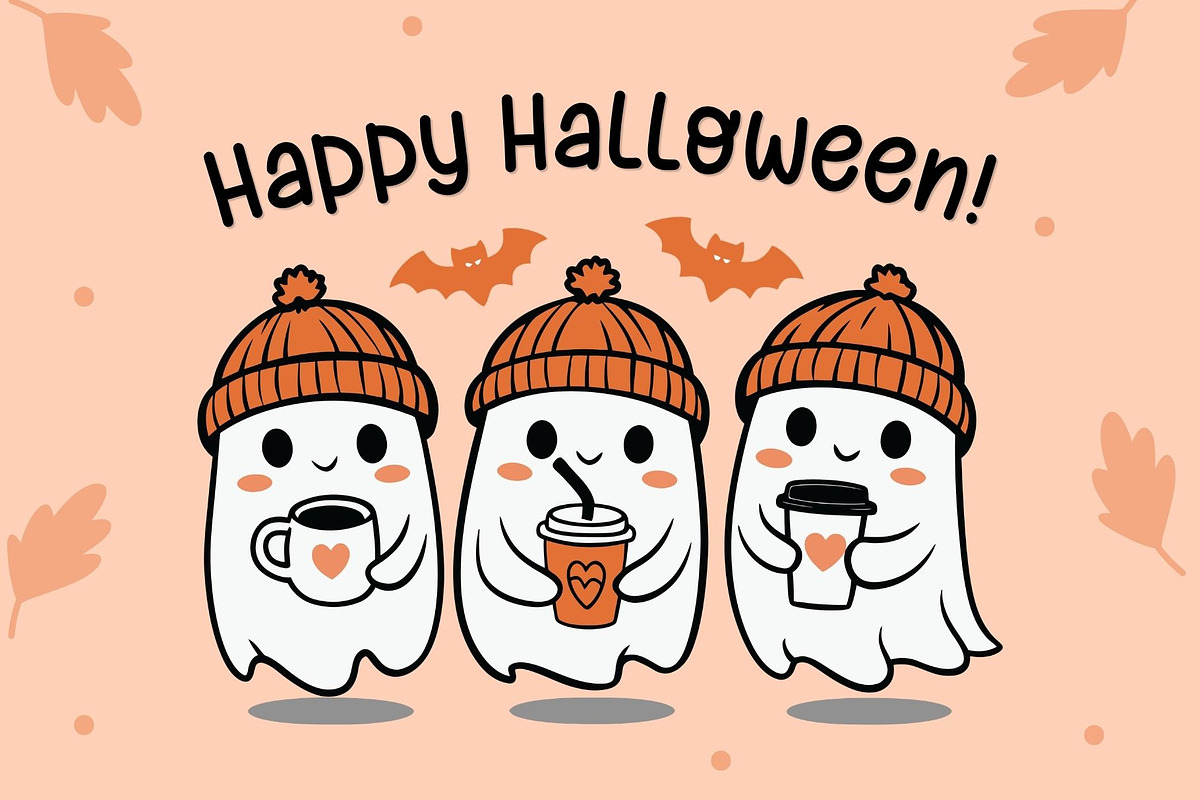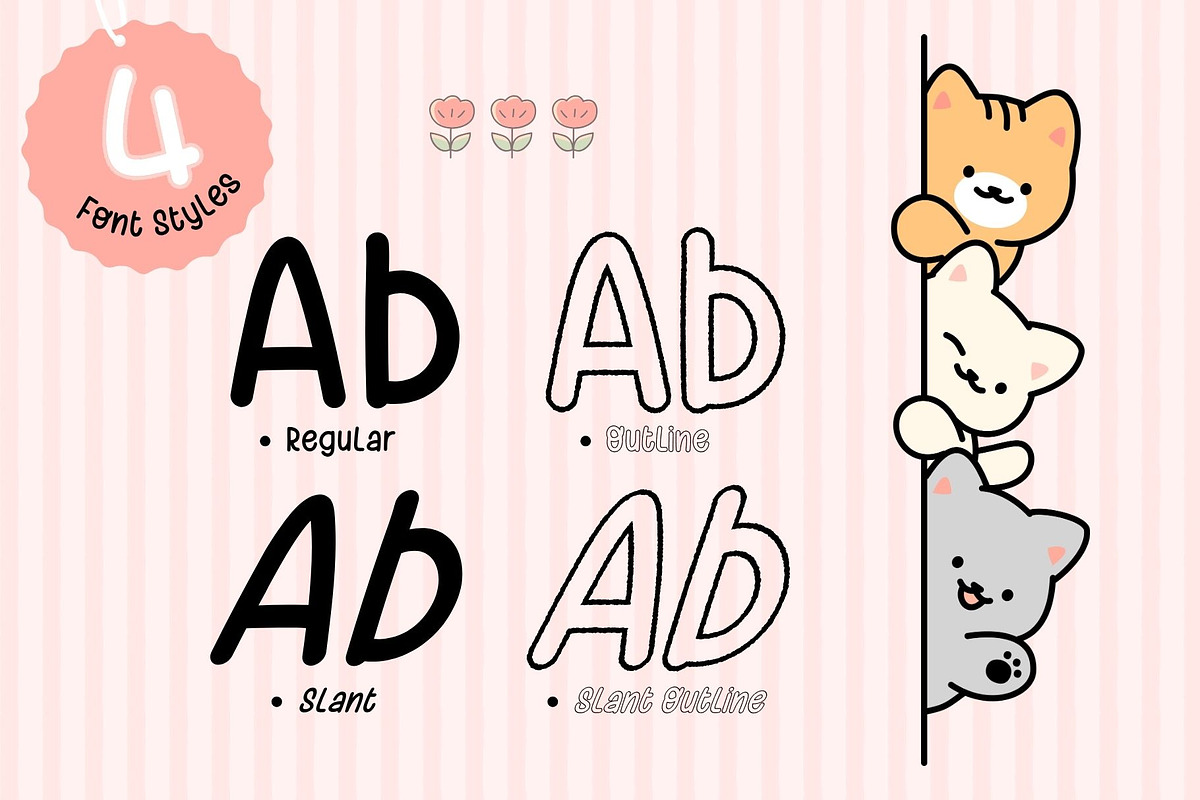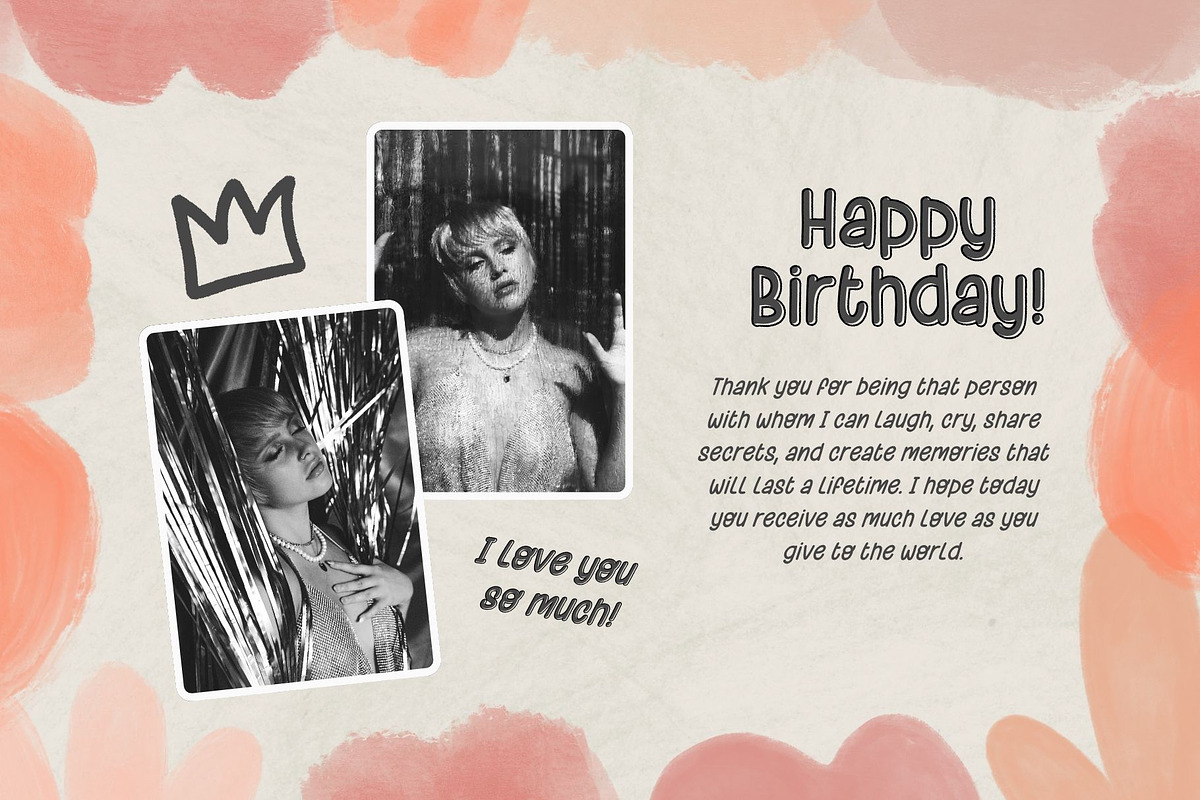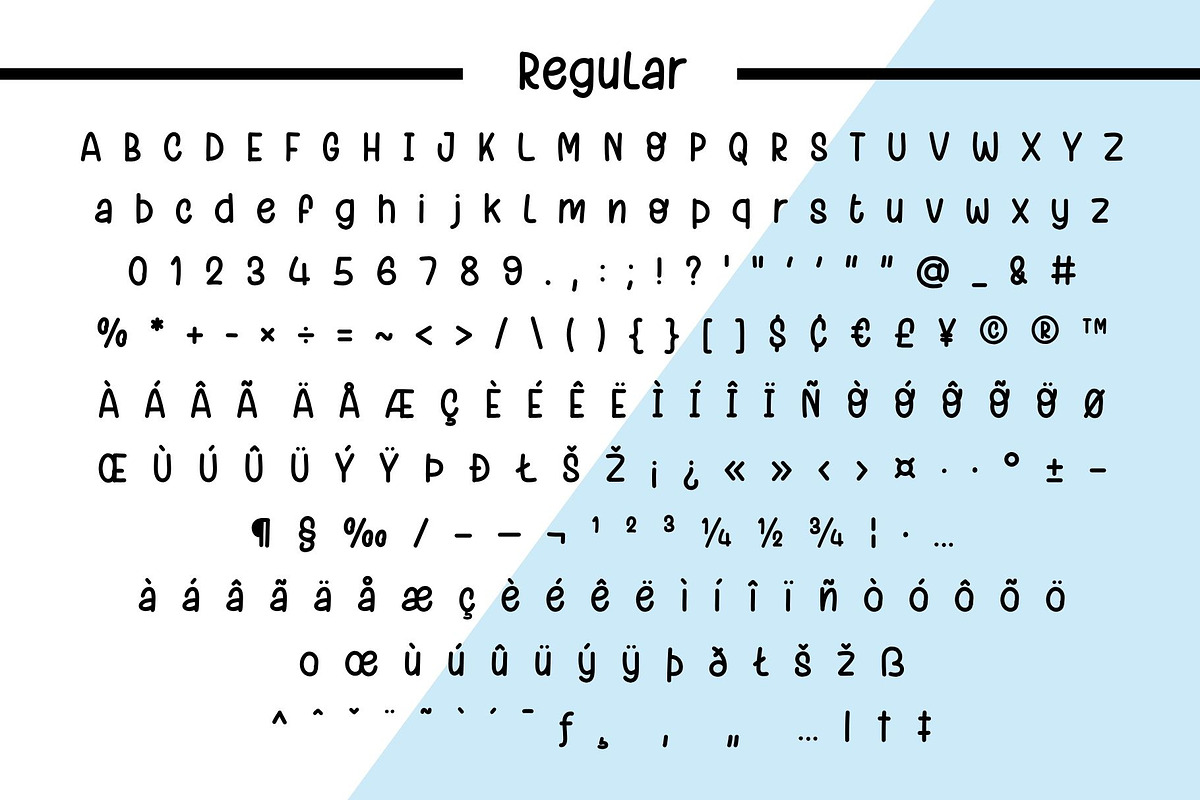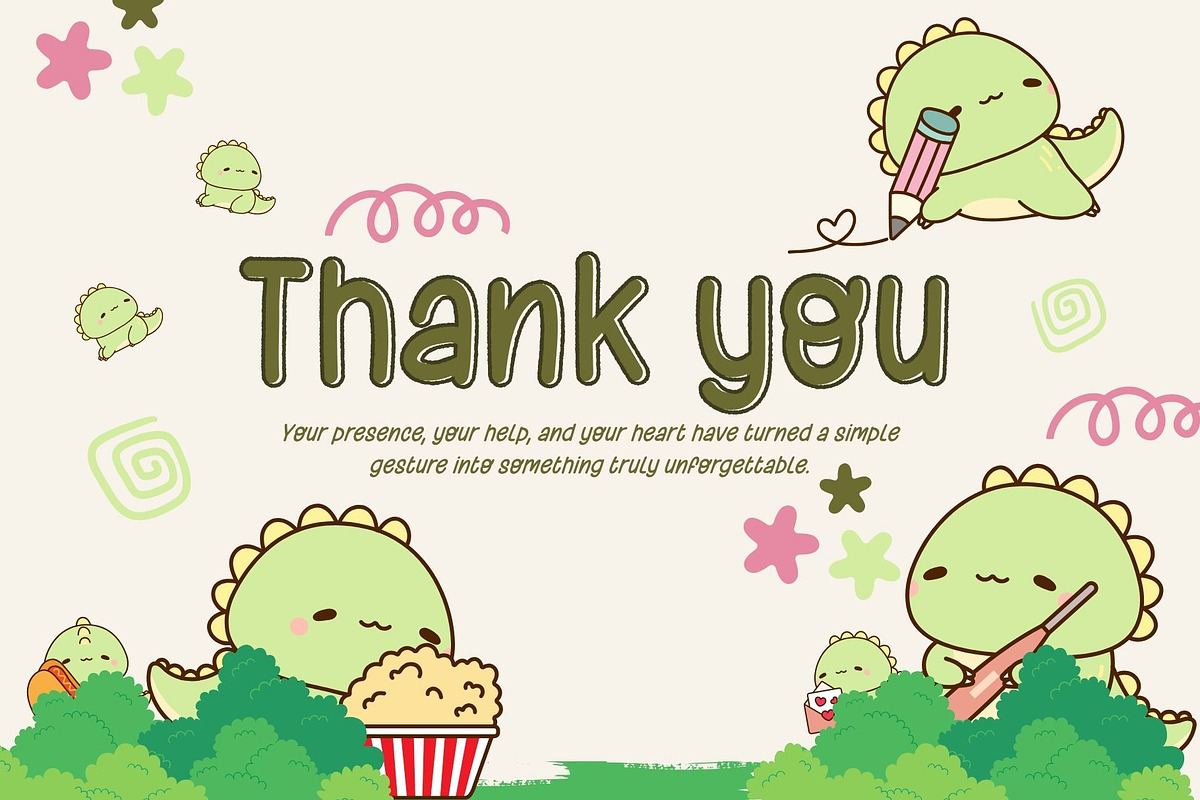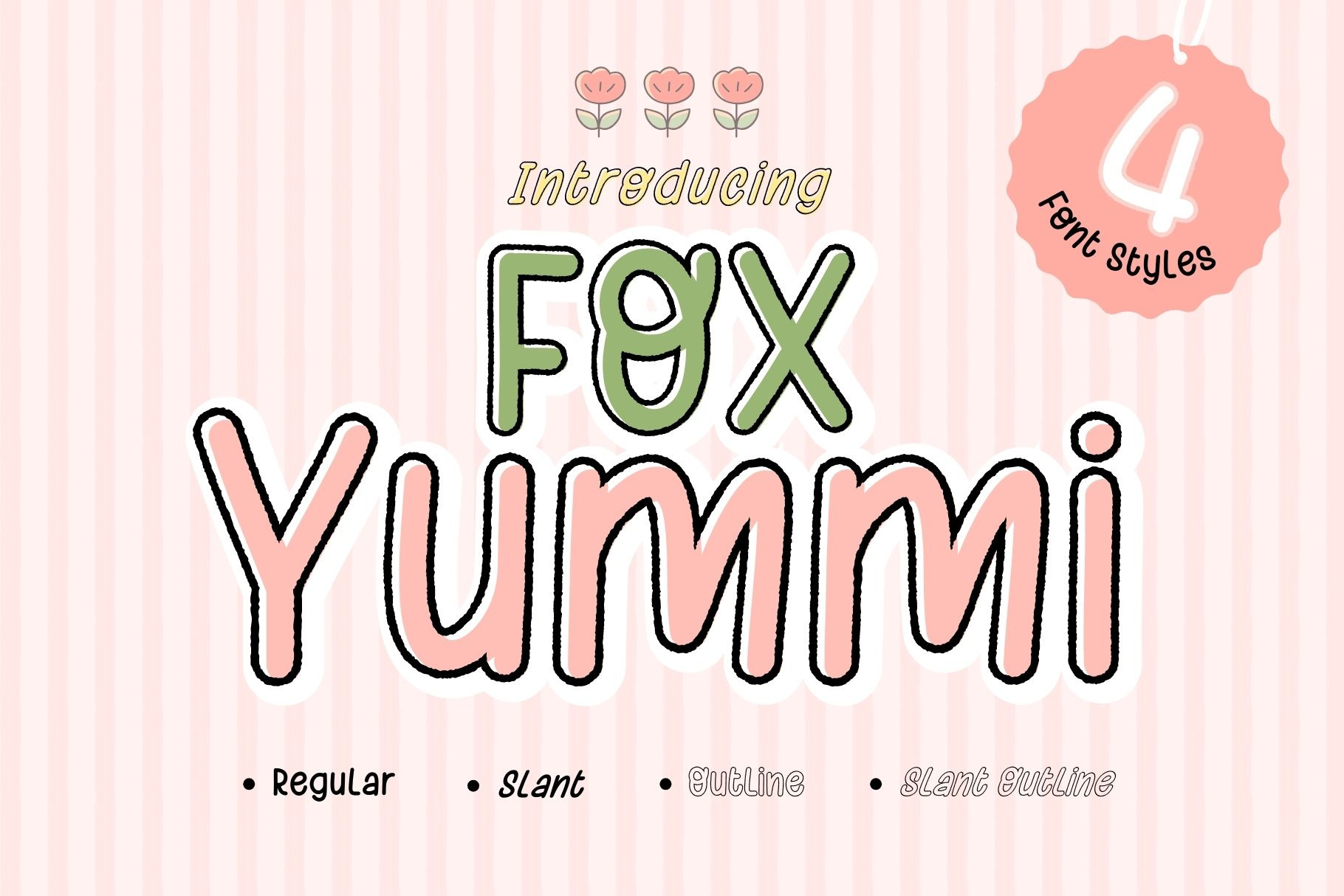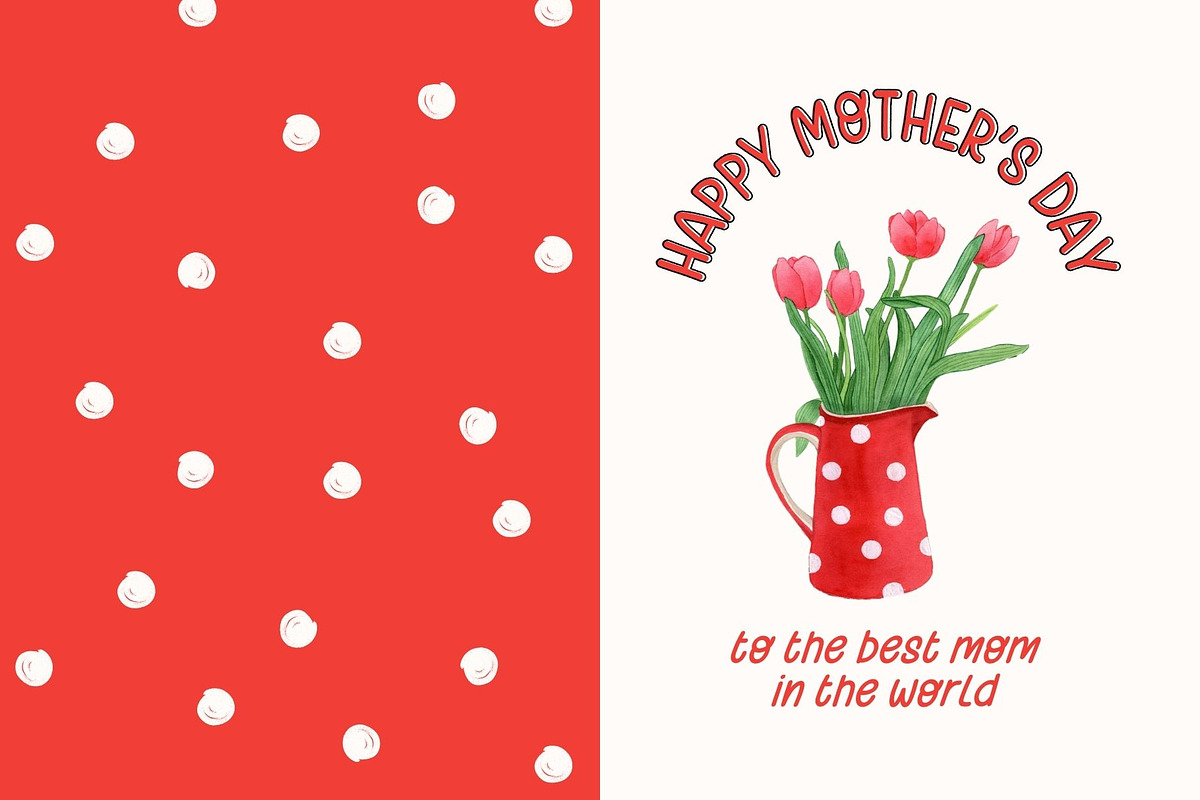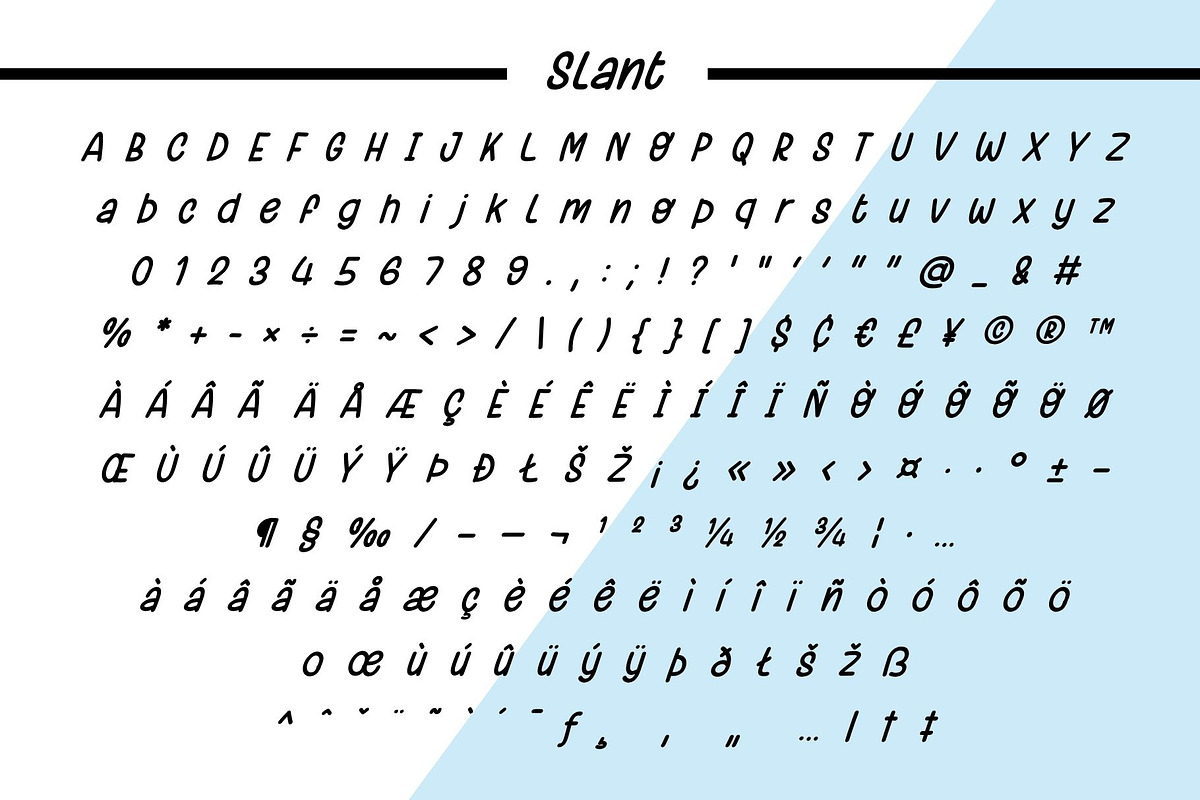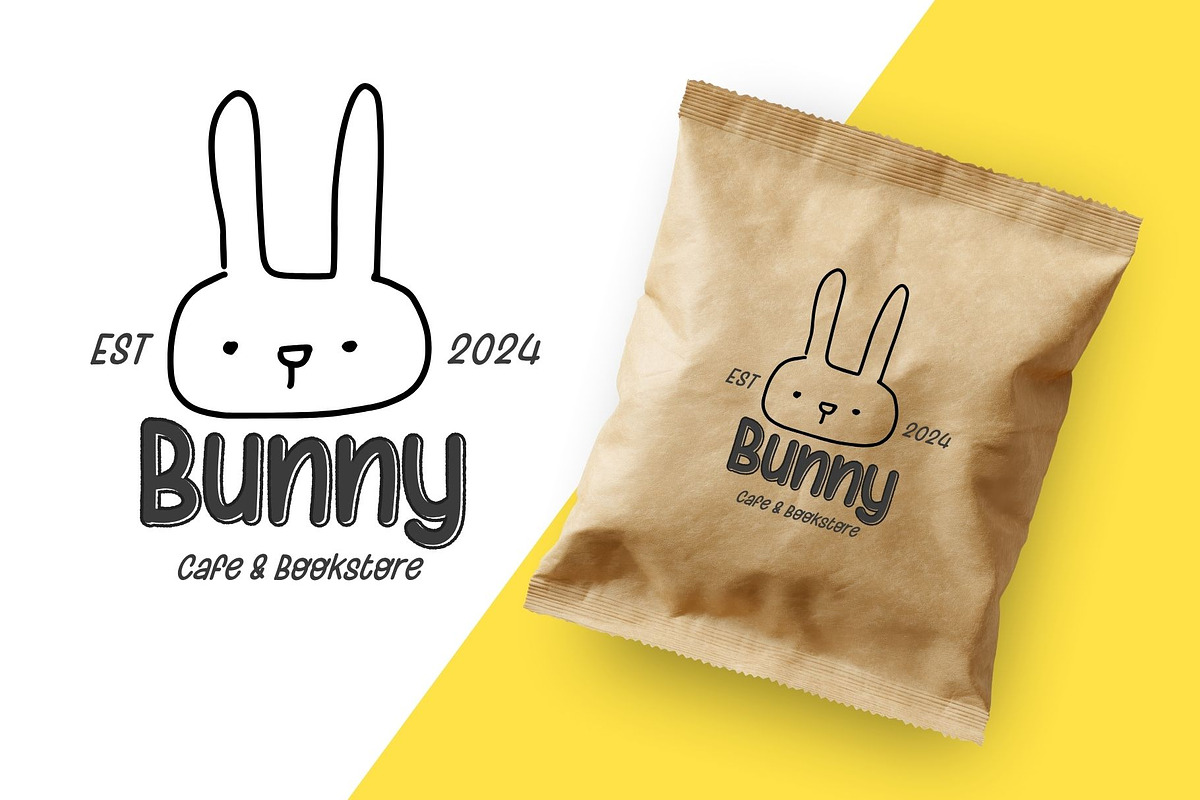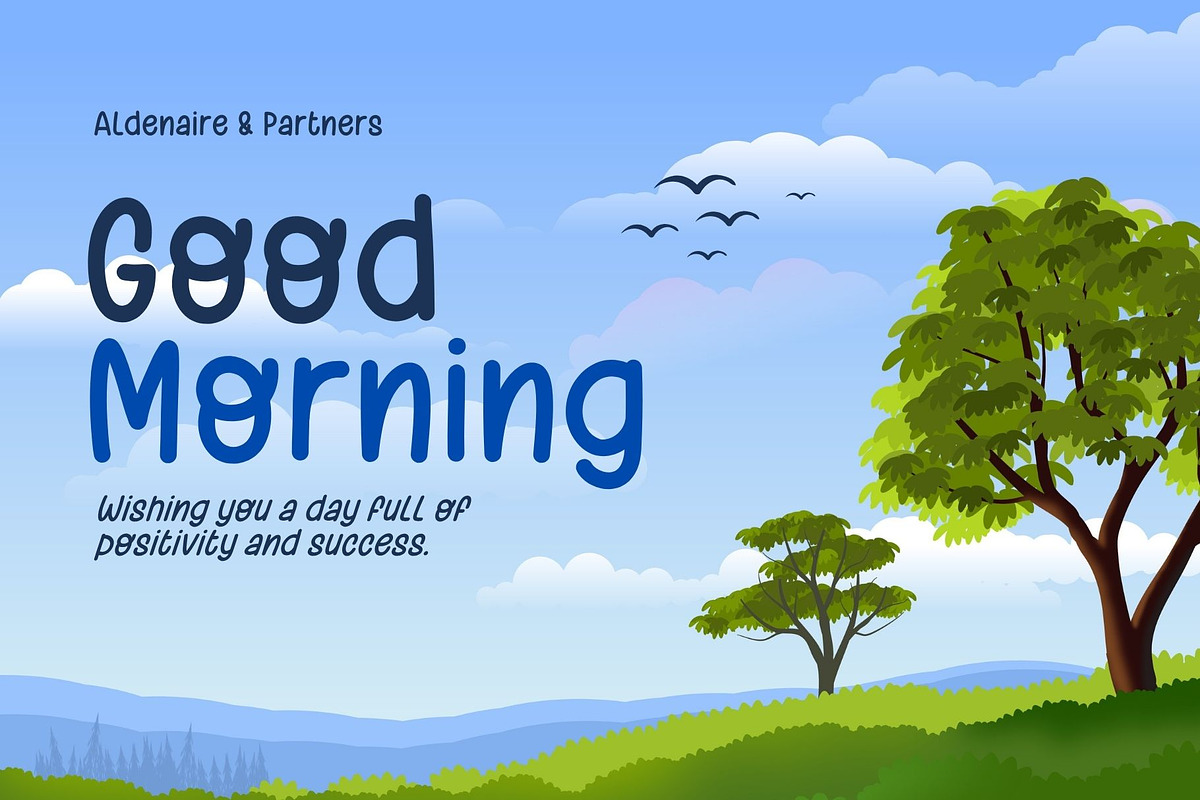
Fox Yummi Font
Fox Yummi is a playful handwritten display font that brings a sweet, cheerful, and cozy vibe to every design. With its rounded shapes, bold outlines, and cute handmade feel, this font is perfect for creators who want to add charm and personality to their projects. Inspired by kawaii aesthetics and cozy café branding, Fox Yummi delivers a fun look while still staying clean and easy to read.
Fox Yummi works beautifully for a wide range of creative projects such as:
⟡ Kids branding
⟡ Cute logo design
⟡ Café & bakery packaging
⟡ Stickers and planner designs
⟡ T-shirt and merchandise
⟡ Social media posts
⟡ Cricut & Silhouette projects
⟡ YouTube thumbnails
⟡ Book covers
⟡ Handmade product branding
⟡ Nursery quotes and classroom decor